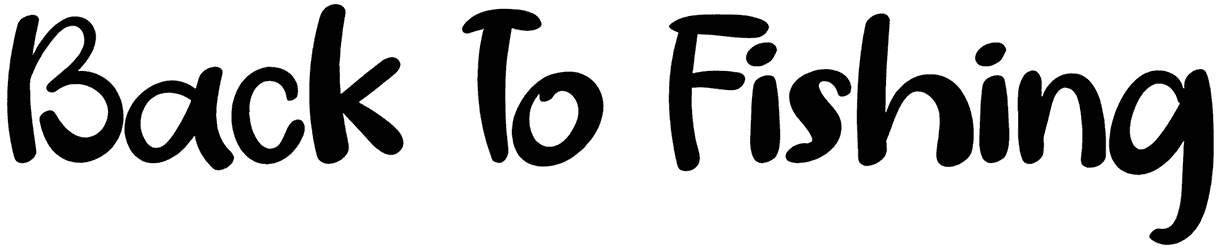
Back To Fishing Font
Back To Fishing is one of the cartoon fonts that soften around the edges and bring you better readability. This baby font is perfect when you want a stylish and imperfect touch and flow of organic aesthetics in your texts without affecting the content.
So if you’re looking for a font with an intimate touch for your personal projects, stationery packaging, and wedding cards, and you only have a little time to search, Back To Fishing won’t make you regret it.